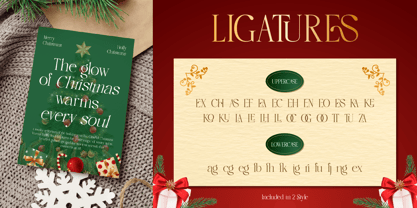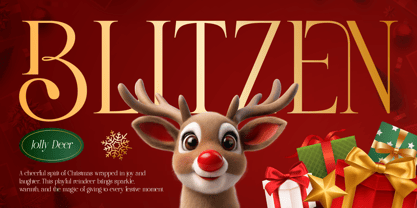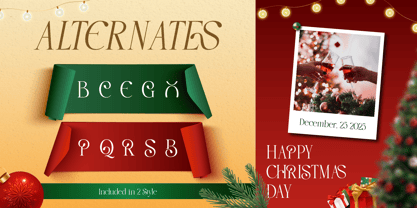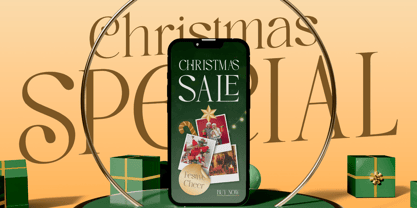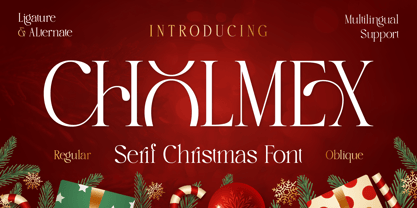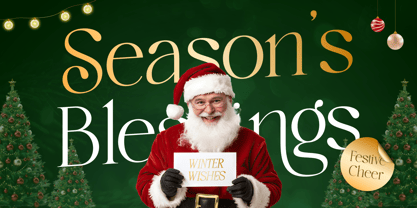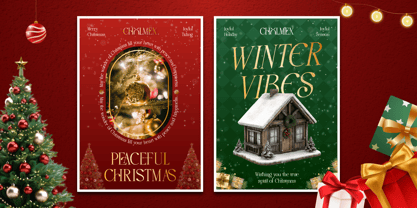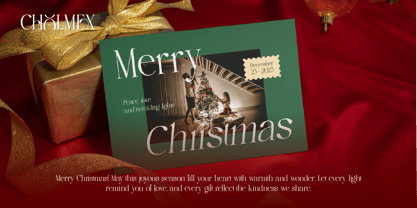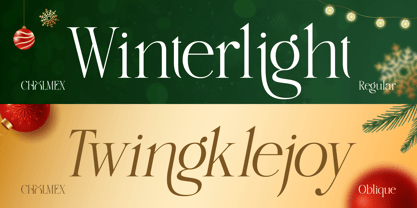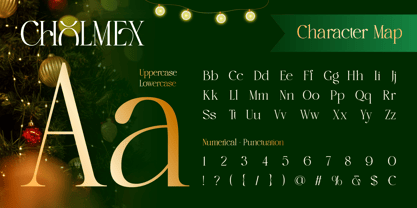
Cholmex
by Burntilldead
The Cholmex Font Family was designed by Eric Kurniawan and published by Burntilldead. Cholmex contains 2 styles and family package options. More about this family
Enrich your holiday designs with Cholmex, the sophisticated Serif Christmas Font that brings instant elegance and festive cheer. Cholmex is more than just a typeface; it’s the perfect touch of seasonal luxury for all your creative projects. Its classic serif structure is beautifully accented with subtle, ornate details, making it ideal for everything from formal invitations to cozy greeting cards. Whether you're crafting titles or adding a playful sparkle, Cholmex is the essential ingredient for stunning holiday typography. Features: A - Z set (Uppercase & Lowercase), Number, Alternates, Ligatures, Punctuation, Multilingual